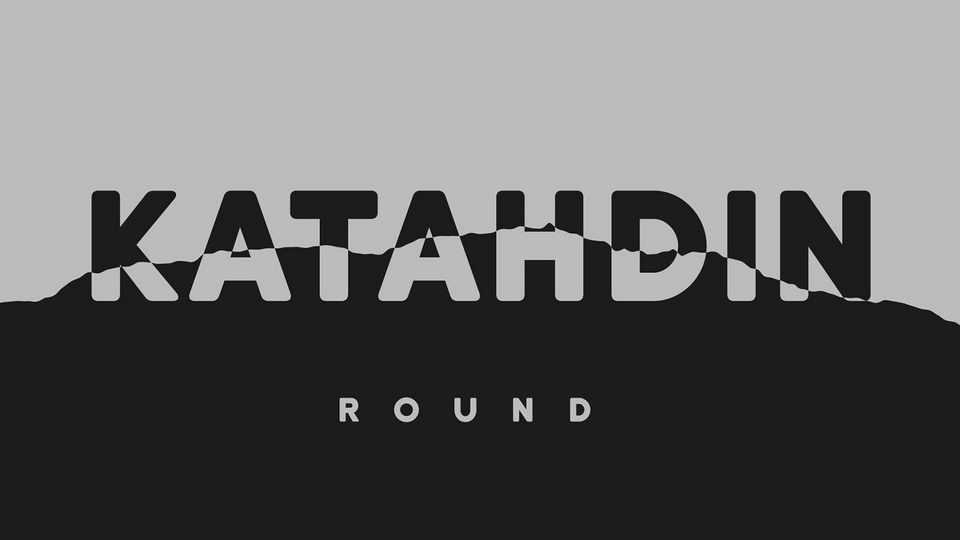
Download Katahdin Round font, a bold rounded sans serif font with a friendly and soft look. Katahdin works best for posters and headlines.
Designer: Tyler Finck